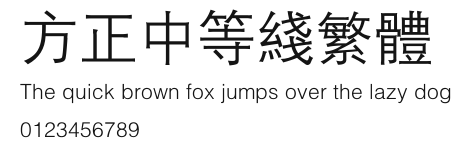
方正中等线繁体 Preview
• Font Name: 方正中等线繁体
• Font ID: Founder:方正中等线繁体 Regular
• Full Font Name: 方正中等线繁体
About 方正中等线繁体.ttf
方正中等线繁体.ttf is a modern, elegant sans-serif font designed for ultimate readability and visual harmony. Perfect for branding, headlines, web design, and print materials.